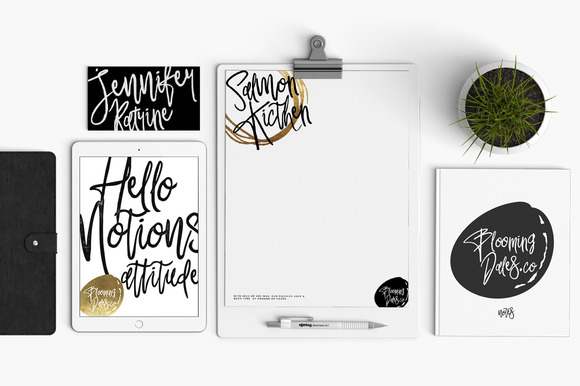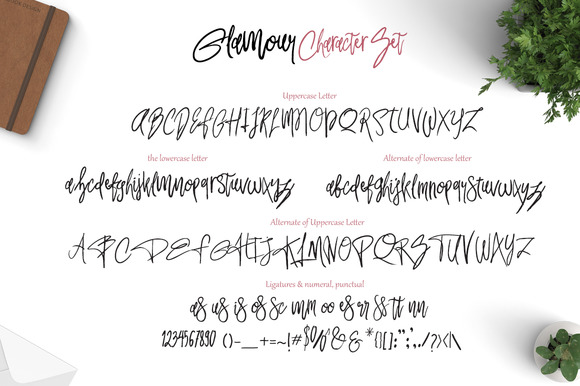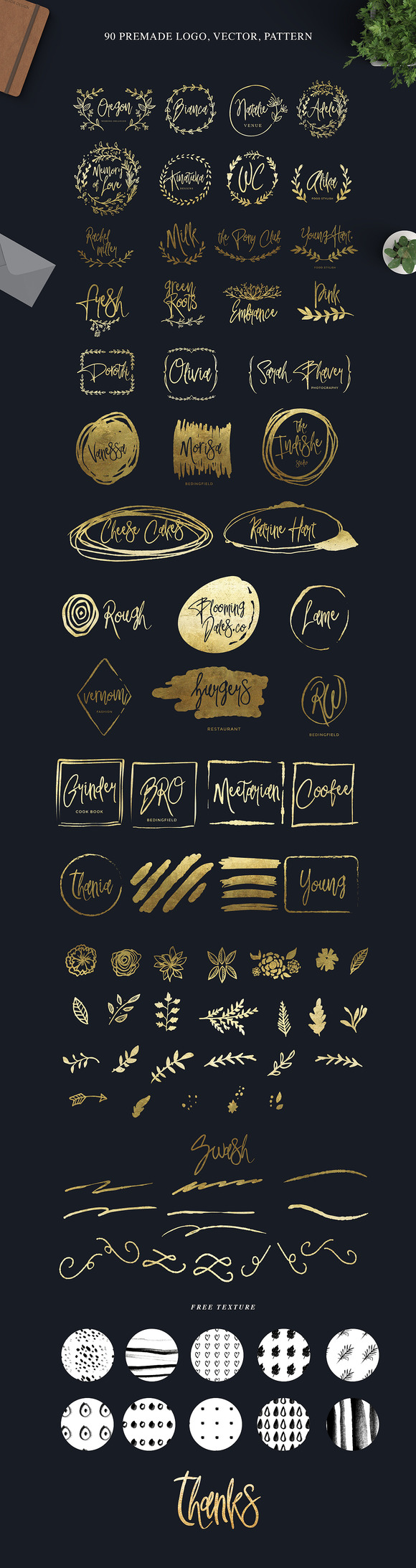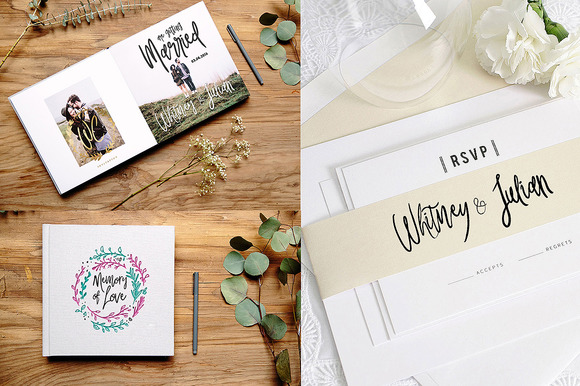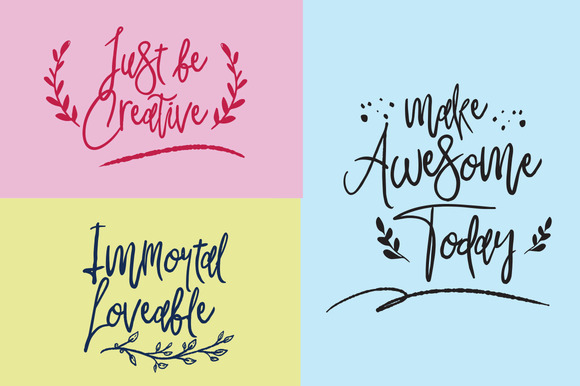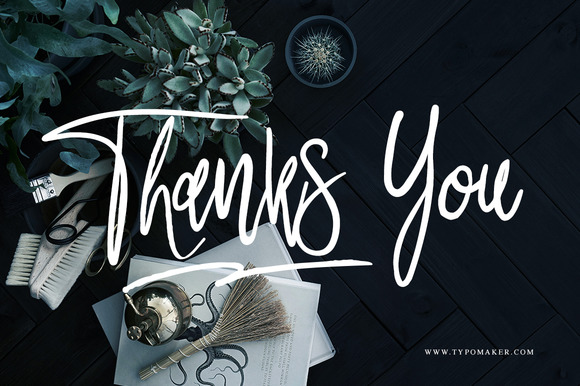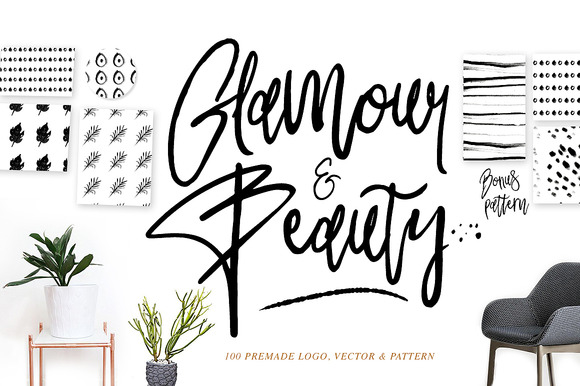
Glamour Fonts+90 logos+Pattern
Glamour & Beauty is Freestyle handmade signature type, suitable for bloging, DIY project Title, logo, packaging, clothing, food, Weeding Invitaion, or branding with 90 premade logo,vector+10 pattern could you make great designs with total 100 freebies.